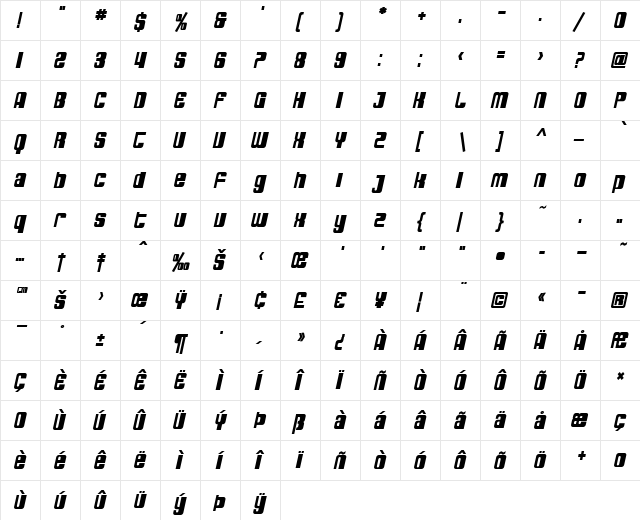
Design Context for SF DecoTechno Typeface
SF DecoTechno channels digital-age aesthetics through its sharp, structured letterforms — ideal for brands that want to signal innovation. Its italic angle brings a sense of urgency and motion to the letterforms. Its bold stroke weight gives it real presence on the page.
Pro Tip: Try SF DecoTechno with generous letter-spacing in UI labels and navigation — the geometric forms benefit from room to breathe.